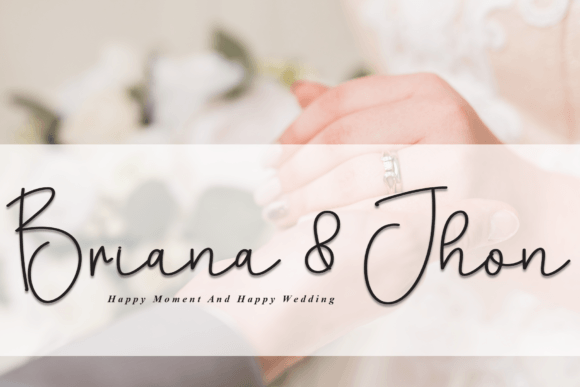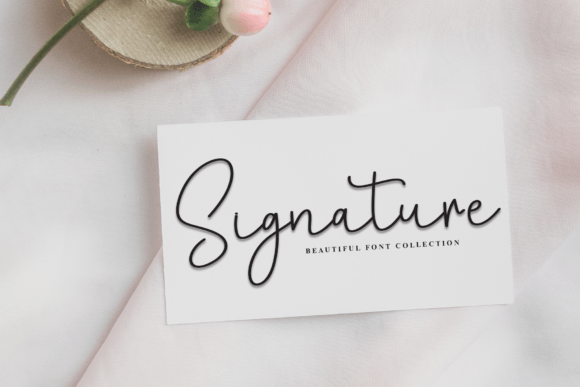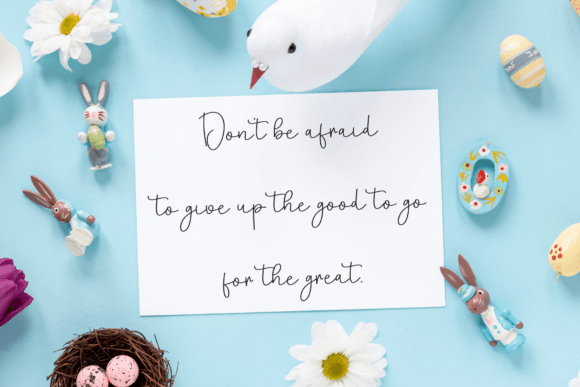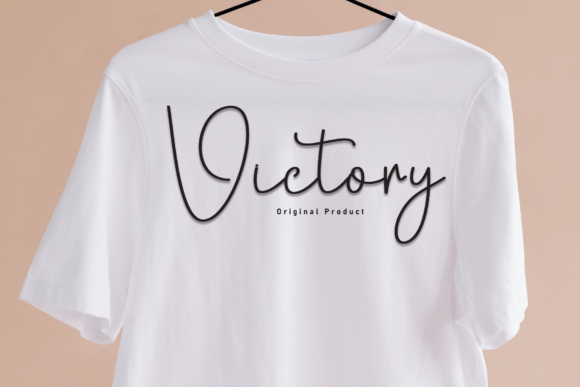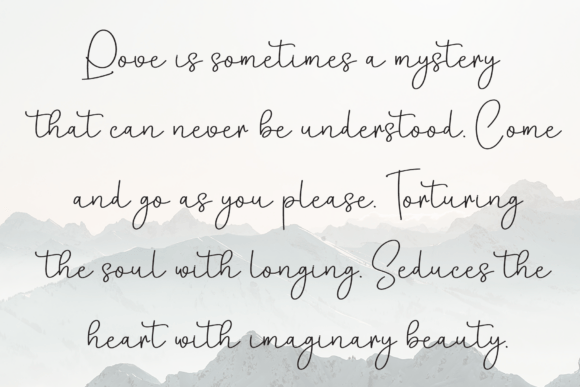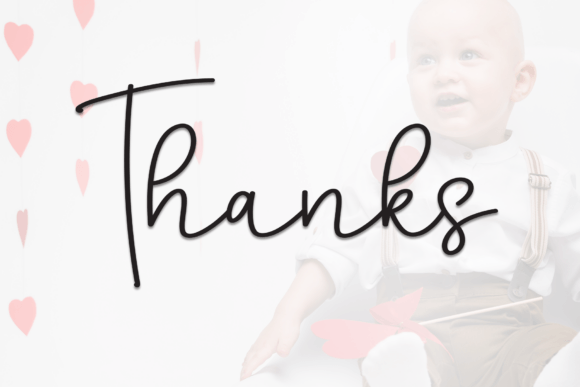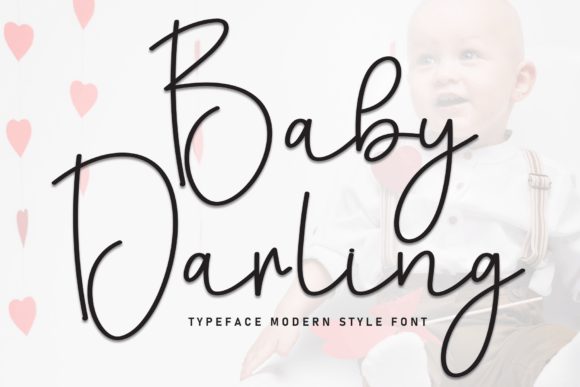
Baby Darling Font: The Sweet and Friendly Handwritten Font for Your Designs
Are you a designer or crafter looking for a font that can add a touch of sweetness and friendliness to your projects? Look no further than the Baby Darling Font! This beautiful handwritten font is perfect for a wide range of designs, from baby-themed projects to wedding invitations, and everything in between.
What is Baby Darling Font?
Baby Darling is a sweet and friendly handwritten font that is sure to capture the hearts of your audience. Its natural and unique style makes it incredibly fitting to a large pool of designs, and the only limit is your imagination! This font is perfect for designers and crafters who want to add a personal touch to their projects.
Characteristics of Baby Darling Font
The Baby Darling Font has several characteristics that make it stand out from other fonts. Here are a few:
- Sweet and Friendly: The Baby Darling Font has a sweet and friendly tone that is perfect for baby-themed projects, wedding invitations, and other designs that require a personal touch.
- Handwritten: This font is a handwritten font, which gives it a unique and personal feel.
- Natural and Unique: The Baby Darling Font has a natural and unique style that makes it incredibly fitting to a wide range of designs.
Uses of Baby Darling Font
The Baby Darling Font is versatile and can be used for a wide range of designs, including:
- Baby-Themed Projects: This font is perfect for baby-themed projects, such as baby shower invitations, birth announcements, and baby clothing.
- Wedding Invitations: The Baby Darling Font is also perfect for wedding invitations, especially for couples who want to add a touch of sweetness and romance to their big day.
- Stationery and Cards: This font is great for creating stationery and cards, such as greeting cards, thank-you cards, and birthday cards.
- Digital Designs: The Baby Darling Font can also be used for digital designs, such as social media graphics, blog posts, and website headers.
Tips for Using Baby Darling Font
Here are a few tips for using the Baby Darling Font:
- Pair it with Other Fonts: The Baby Darling Font can be paired with other fonts to create a unique and interesting design.
- Use it for Headings and Titles: This font is perfect for headings and titles, as it adds a touch of sweetness and friendliness to your design.
- Experiment with Colors: The Baby Darling Font can be used with a variety of colors, so don’t be afraid to experiment and find the perfect color scheme for your design.
In conclusion, the Baby Darling Font is a sweet and friendly handwritten font that is perfect for a wide range of designs. Its natural and unique style makes it incredibly fitting to a large pool of designs, and the only limit is your imagination! Whether you’re a designer or crafter, this font is sure to become a favorite in your collection.